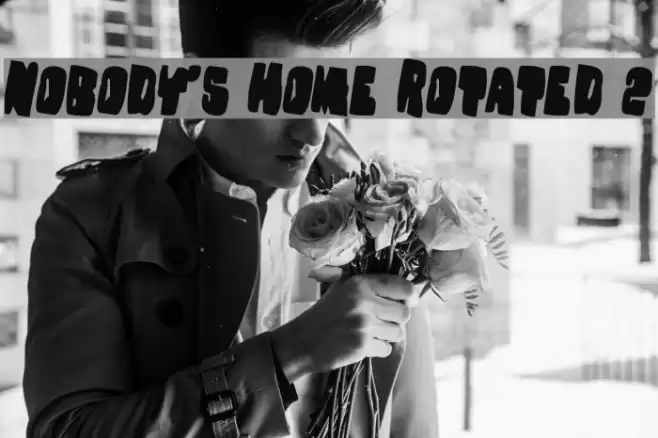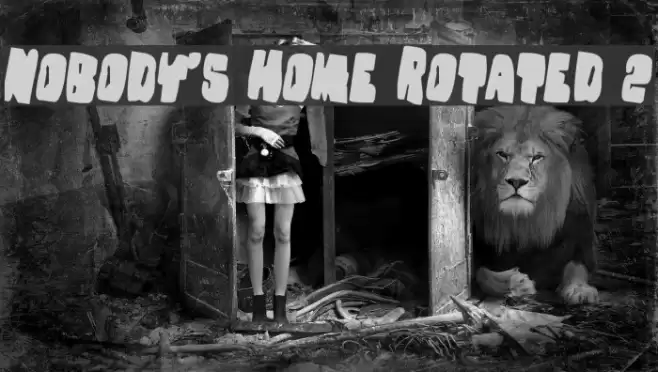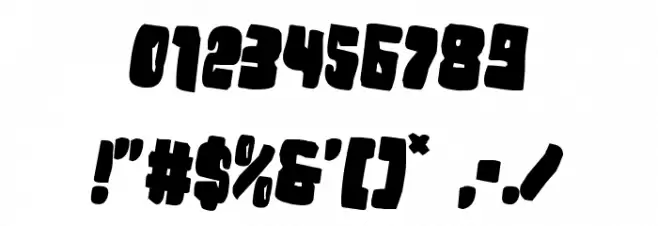
Nobody's Home Rotated 2 Font
Nobody's Home Rotated 2 Description
This font features a bold and playful design with a distinctive, irregular shape that gives it a dynamic and energetic appearance. The characters are thick and robust, with uneven edges that create a sense of movement and spontaneity. This style is reminiscent of graffiti or street art, making it ideal for projects that require a bold and unconventional look. The uppercase and lowercase letters maintain a consistent style, while the numbers and special characters complement the overall aesthetic with their chunky and expressive forms.
A bold, playful font with irregular, dynamic shapes reminiscent of graffiti art from Uncategorized fonts.
- Proposed Projects: Ideal for street art-inspired designs, posters, album covers, and creative branding projects.